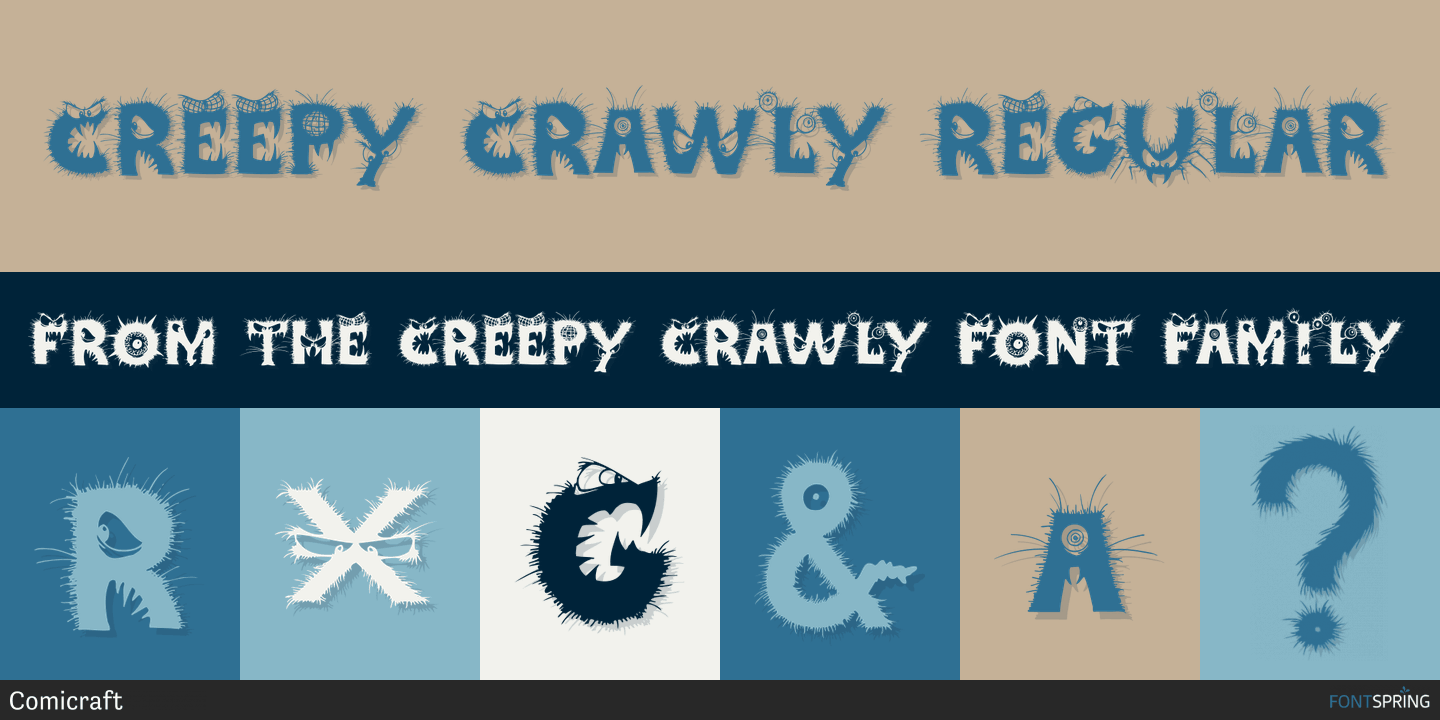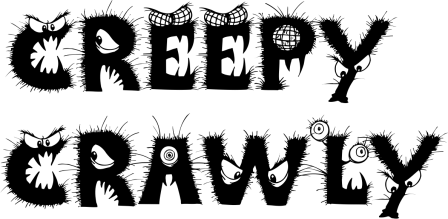
Designed by John Roshell, Creepy Crawly is a novelty font published by Comicraft.
There are worms in the earth, hairy bugs under the bed and strange bloodshot eyeballs peering at you from out of the closet. Lilou’s Creepy Crawly font is perfect for scaring away Trick-or-Treaters, just install our font and print out your signs with the legend: WE EAT LITTLE CHILDREN HERE!